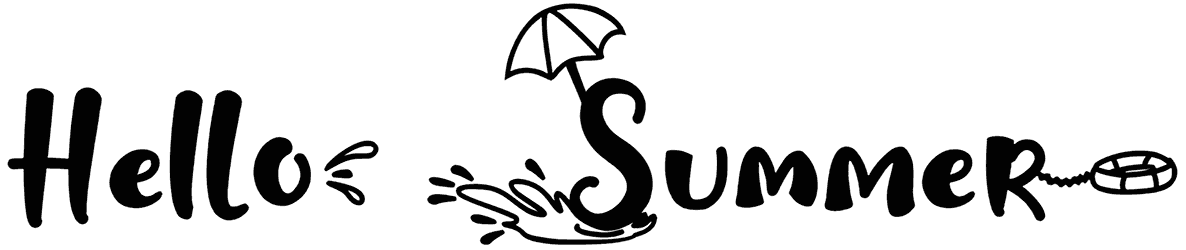
Hello Summer Font
Hello Summer is a lovely decorative font, perfect for adding a little more flair to your designs. As a result, the font’s easygoing and cheerful vibe may put a smile on anyone’s face.